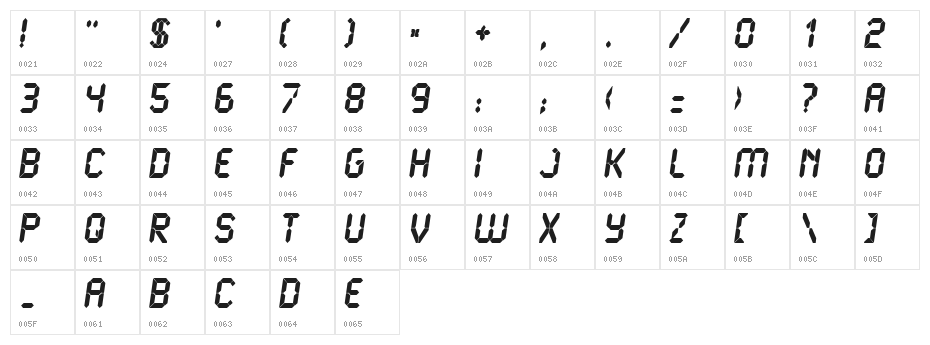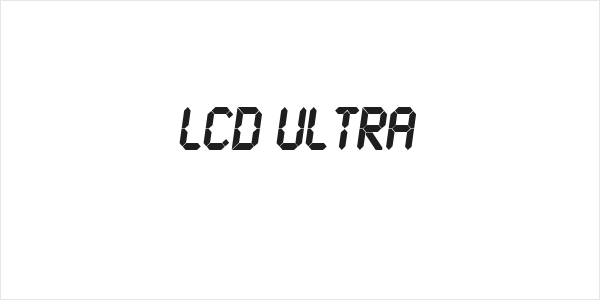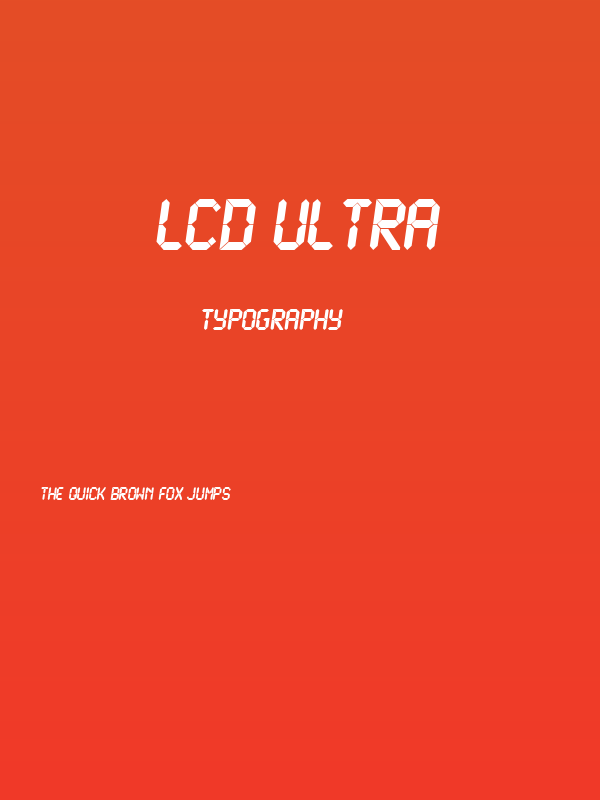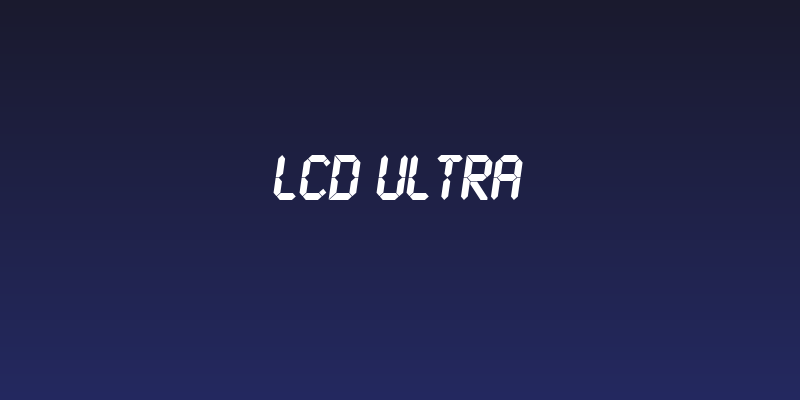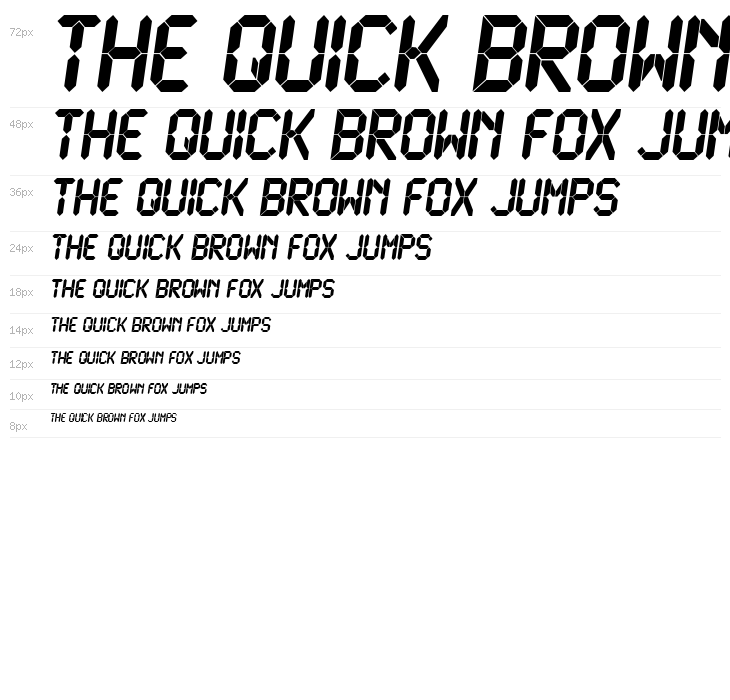
LCD Ultra Font
LCD Ultra Description
This font is inspired by digital displays, featuring a segmented, geometric design reminiscent of LCD screens. Each character is constructed from a series of straight lines and angles, creating a futuristic and technical appearance. The uppercase and lowercase letters maintain a consistent style, with sharp edges and a uniform height. Numbers and special characters follow the same segmented pattern, ensuring a cohesive look across all glyphs. This font is ideal for projects that require a modern, tech-savvy aesthetic, such as digital interfaces, tech branding, or futuristic themes.
| Use Case | Headlines, Logos, Digital displays |
| Proposed Projects | Ideal for digital interfaces, tech branding, futuristic themes, and electronic device displays. |